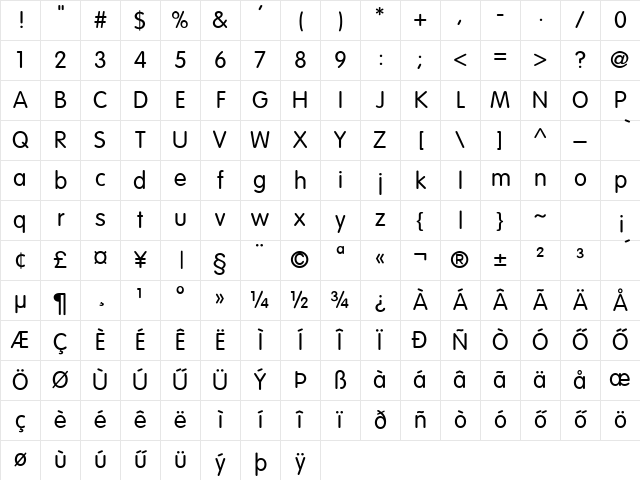
VAG-RoundedLightHU Normal
Design Context for VAG-RoundedLightHU
VAG-RoundedLightHU softens its letterforms with rounded terminals, giving it an approachable, friendly quality that works well in consumer-facing and digital contexts. Its slender proportions lend an understated elegance to any composition.
Font Pairing: Pairs well with a rounded or humanist sans for body copy, maintaining the friendly tone without relying on VAG-RoundedLightHU to carry extended reading.
Pro Tip: Use VAG-RoundedLightHU for UI elements, app interfaces, and anywhere a friendly, approachable tone needs to be maintained without sacrificing clarity.